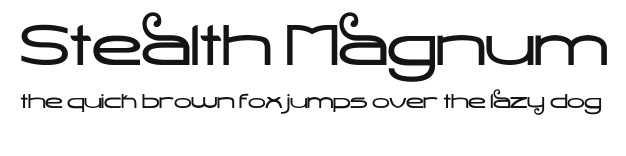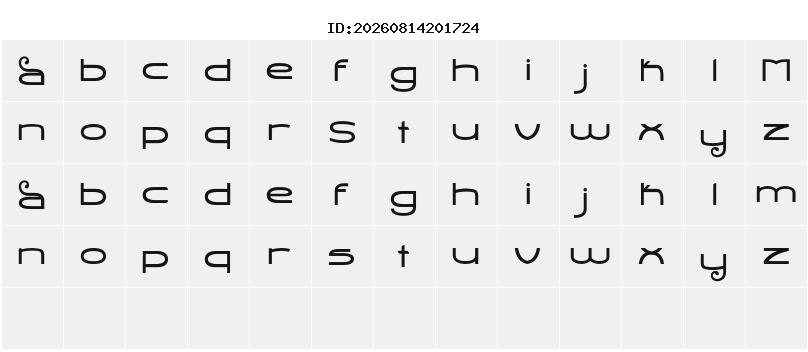
• Font Name: Stealth Magnum
• Full Font Name: Stealth Magnum
• Version: Version 1.00 March 30, 2010, initial release
About Stealth Magnum.ttf
Stealth Magnum.ttf is a modern, elegant sans-serif font designed for ultimate readability and visual harmony. Perfect for branding, headlines, web design, and print materials.